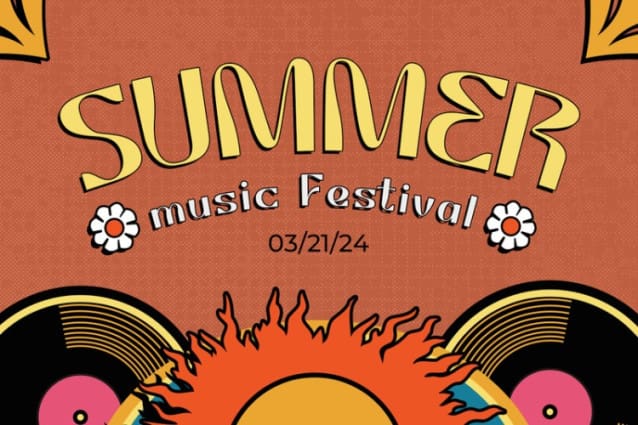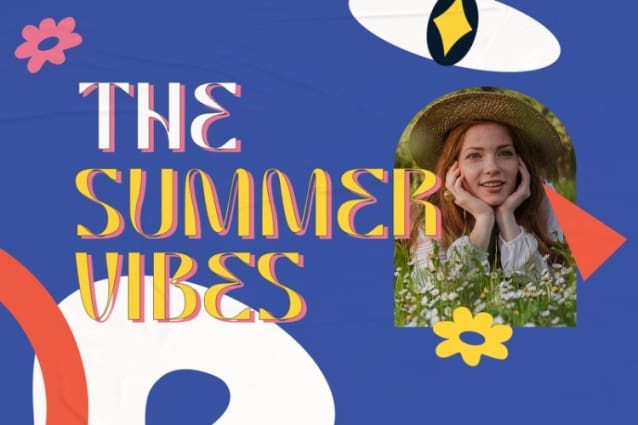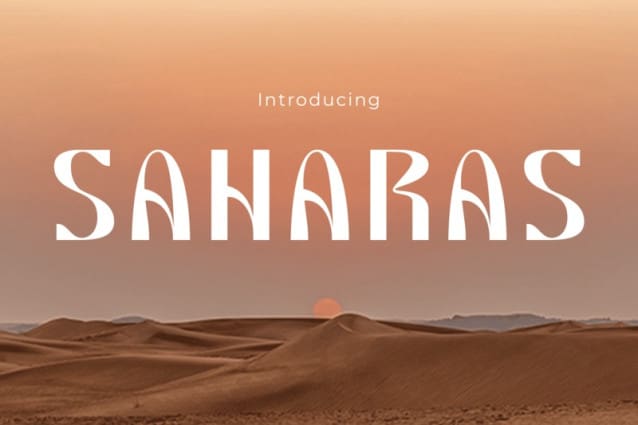
Saharas Font
Saharas Font, a Modern Sans Serif font, epitomizes the fusion of contemporary aesthetics with streamlined functionality. This font’s clean, sans serif style ensures outstanding readability, making it a versatile choice for various design needs. It excels in crafting captivating logos, imbuing quotes with a distinct flair, and adding an elegant touch to invitations. When used in posters and greetings, Saharas conveys messages with both warmth and professionalism.
Its clear and modern character enhances packaging and branding, creating an engaging visual appeal. In covers, headlines, and advertising, Saharas delivers your message with striking clarity and modern sophistication. Perfect for designers who appreciate a blend of elegance, simplicity, and effectiveness, Saharas Font is the quintessential font for modern design challenges.